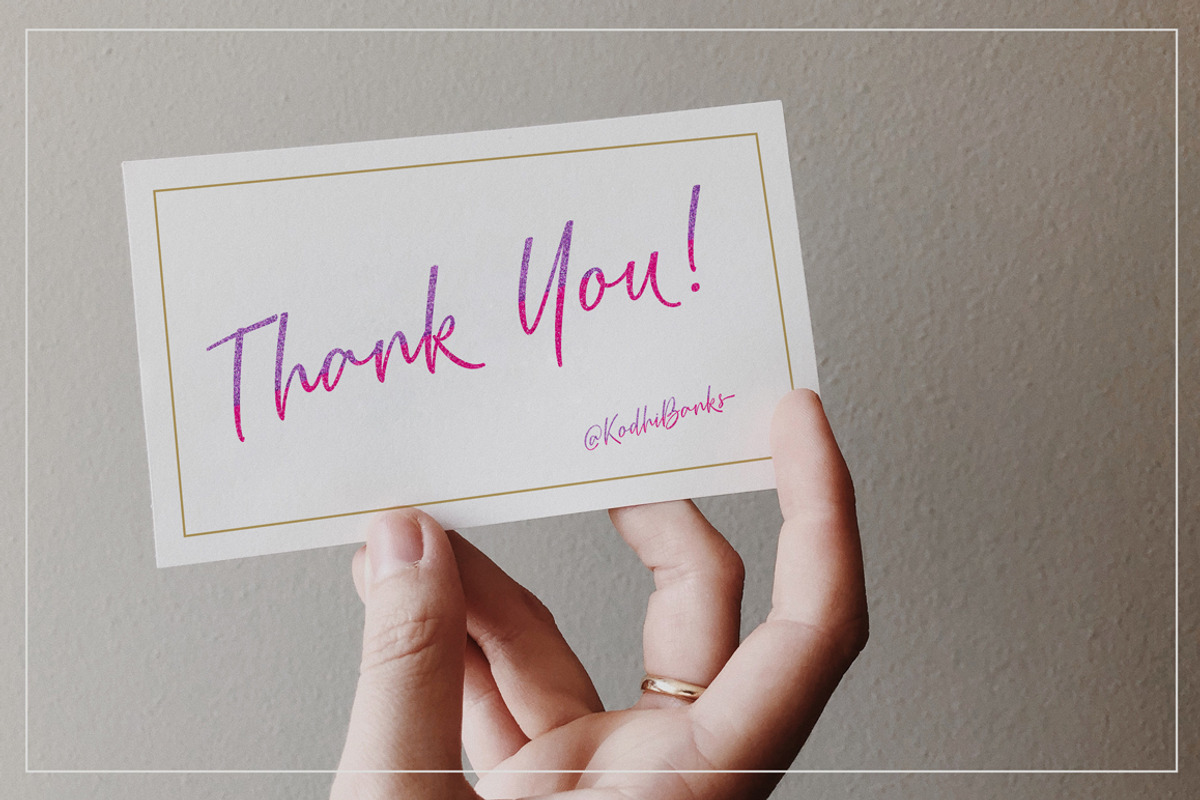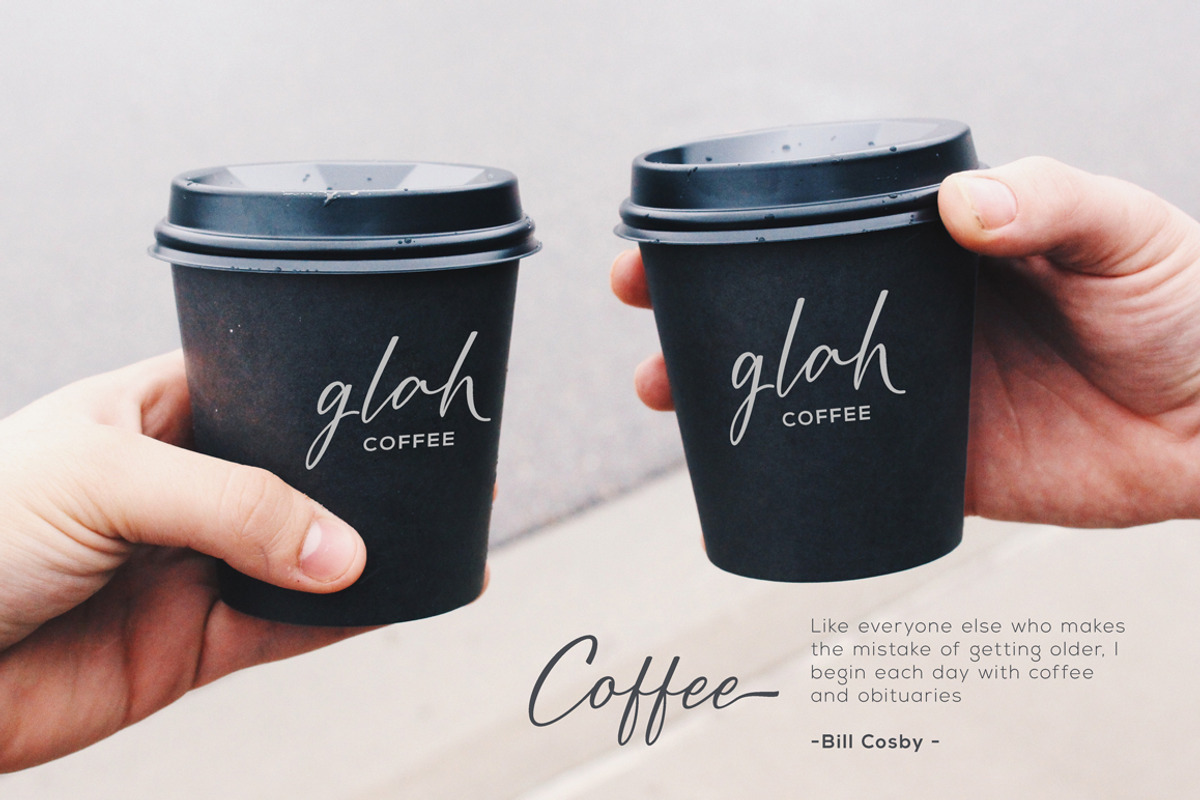
Chyta Script
Chyta Script is a beatiful simple handwritten typeface. Chyta Script consists of irregular spinning and flowing writing, so it looks beautiful. This Typeface suitable for logo lettering, taglines, wedding invitations, greeting cards, design of water-based paints, correspondence, and a variety of other purposes.
Chyta Script includes several Ligatures, Stylistic Alternates, Stylistic Sets ( These alternates are accessible by turning on 'Stylistic Alternates' in Photoshop, or via any software with a glyph panel, e.g. Adobe Illustrator, Photoshop CC ), and has given PUA encoded (specially coded fonts).
- Standard ligatures
- Stylistic sets